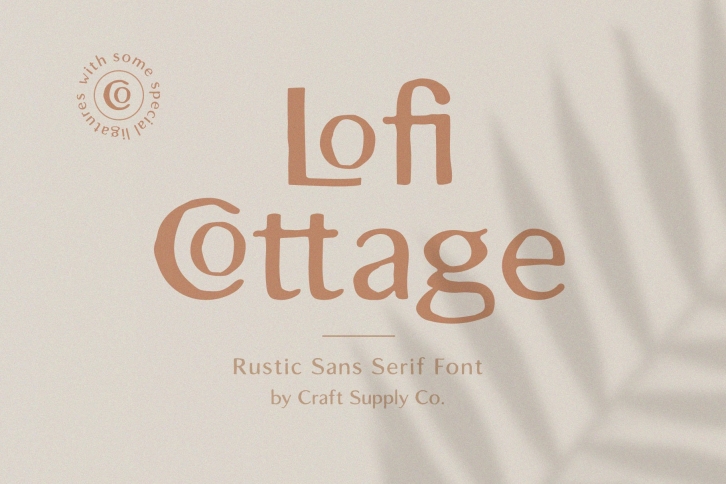
Introducing Lofi Cottage - Rustic Sans Serif Font.
Introducing Lofi Cottage - Rustic Sans Serif Font. It can be used to create almost all types of design projects like print materials. Just use your imagination and your project will become more alive and look great than ever with Lofi Cottage - Rustic Sans Serif Font.
You want to make a greeting card or a package design, or even a brand identity, craft design, any DIY project, book title, wedding font, pop vintage design, retro design or any purpose to make your art / design project look pretty and trendy? Feel free to play with this fonts!
1. Uppercase & Lowercase
2. Numerals & Punctuations (OpenType Standard)
3. Special Ligatures (Ca Ce Co Cu La Le Li Lo Lu Za Ze Zi Zo Zu fa fb ff ffa ffi fh fi fj fk fl ft oo tt)
4. Accents (Multilingual characters) (AÀÁÂÃÄÅCÇDÐEÈÉÊËIÌÍÎÏNÑOØÒÓÔÕÖUÙÜÚÛWYÝŸỲŸÆŒßÞ)